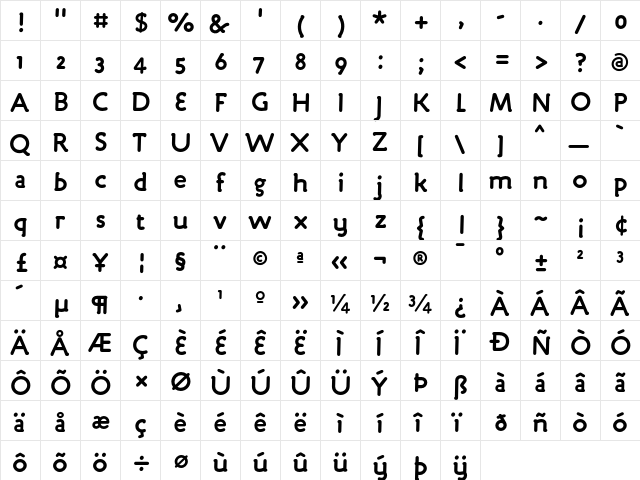
Engine Bold
Design Context for Engine Typeface
Engine is a composed and adaptable typeface that performs quietly and consistently across a wide range of design contexts. The heavy weight commands attention and anchors typographic hierarchies.
Pro Tip: Use Engine in both headline and body roles to test its range before committing to a single application.